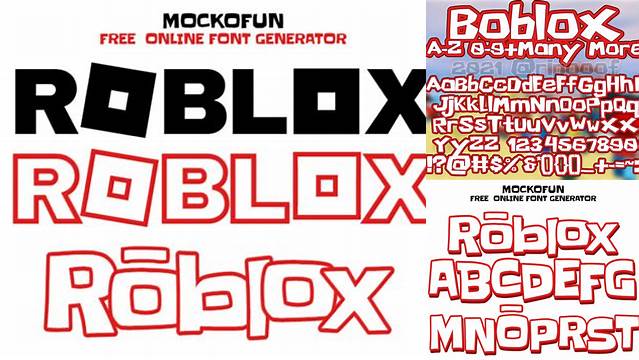
Free Roblox Font Text Generator: Cool Styles!
Hey guys! Want to make your Roblox profile, game descriptions, or group shout stand out? You've come to the right place! We're diving deep into the world of Roblox font text generators, and the best part? It's all free! Let's explore how you can create awesome, eye-catching text that will grab attention and make your Roblox presence truly unique. Forget boring default fonts – we're about to level up your text game! Think of this as your ultimate guide to all things Roblox font related. So, buckle up and get ready to transform your Roblox experience with some seriously cool text.
What is a Roblox Font Text Generator?
Alright, let's start with the basics. What exactly is a Roblox font text generator? Simply put, it's a tool that allows you to convert plain text into stylish, fancy fonts that you can then copy and paste into Roblox. Roblox itself has a limited selection of fonts, which can make your profile or game descriptions look pretty generic. A Roblox font text generator, on the other hand, opens up a whole world of possibilities. You can choose from a massive library of fonts, including bold, italic, cursive, and even more creative styles. These generators work by using special Unicode characters that appear as different fonts in Roblox. So, while Roblox's own font options might be limited, these generators help you bypass that by transforming your regular text into visually appealing formats that Roblox can still display. This means you can inject personality and flair into your in-game communication, descriptions, and even group names. They're a game-changer for anyone wanting to add a unique touch to their Roblox experience, and the best part is, many are completely free to use!
Why Use a Roblox Font Text Generator?
Why bother with a Roblox font text generator when Roblox already has its default font? Great question! The answer boils down to standing out from the crowd and expressing your unique style. Imagine scrolling through countless Roblox profiles, all with the same plain text. It can get a little monotonous, right? Using a font generator allows you to bold important information, add flair with cursive fonts, or create a futuristic vibe with tech-inspired styles. It's like giving your text a personality boost! Beyond aesthetics, a Roblox font text generator can also help you emphasize key points in your game descriptions or group shouts. A well-placed bold word or a stylish heading can draw the eye and make your message more impactful. Plus, let's be honest, it's just plain fun to experiment with different fonts and see how they transform your text. Using a Roblox font text generator is a simple yet effective way to enhance your Roblox presence and leave a lasting impression.
How to Use a Free Roblox Font Generator
Okay, so you're convinced that a Roblox font text generator is the way to go. Awesome! Now, let's talk about how to actually use one. Don't worry, it's super easy. Most free Roblox font generators follow a similar process. First, you'll need to find a generator online. A quick Google search for "free Roblox font generator" should bring up plenty of options. Once you've found one you like, you'll typically see a text box where you can type in your message. After you've written your text, the generator will automatically display it in a variety of different fonts below. Simply scroll through the options and choose the font that best suits your style. Then, all that's left to do is copy the generated text and paste it into your Roblox profile, game description, or group shout. It's as simple as that! Just remember that Roblox may not support every single font, so it's always a good idea to test it out in a non-critical area first to make sure it displays correctly. With a few clicks, you can transform your plain text into a visually stunning masterpiece!
Best Free Roblox Font Generators Online
Now that you know how to use a Roblox font text generator, let's talk about where to find the best ones. The internet is overflowing with options, but not all generators are created equal. Some offer a wider variety of fonts than others, while some might have a cleaner, more user-friendly interface. To help you get started, here are a few popular free Roblox font generators that are worth checking out. First up, you've got LingoJam, which is a classic choice for generating stylish text. It's super easy to use and offers a wide range of font options. Another great option is CoolSymbol, which not only generates fancy fonts but also provides a ton of other cool symbols and characters you can use to further personalize your text. And don't forget about Textcraft, which is another reliable generator with a solid selection of fonts. The best way to find your favorite is to experiment with a few different generators and see which one you like best. Most of these sites are free, easy to use, and offer a plethora of cool fonts to spice up your Roblox presence.
Creating Stylish Roblox Usernames
Your Roblox username is your identity in the game, so why not make it stylish? A Roblox font text generator can be a fantastic tool for creating a username that stands out. Think about it – a unique font can instantly make your username more memorable and reflect your personality. When choosing a font for your username, it's important to consider readability. While a super fancy font might look cool, it's not very effective if other players can't easily read it. Opt for fonts that are stylish but still clear and legible. You can use a Roblox font text generator to experiment with different fonts and see how they look with your desired username. Try using a bold font to make your name pop, or a cursive font for a more elegant touch. Remember, your username is your first impression in the Roblox world, so make it count! A well-chosen font can be the difference between a forgettable name and one that everyone remembers.
Enhancing Roblox Game Descriptions
Game descriptions are crucial for attracting players to your Roblox creations. A Roblox font text generator can help you craft descriptions that are not only informative but also visually appealing. Imagine scrolling through a list of games, all with the same plain text descriptions. Which one are you more likely to click on – the one with the boring text or the one with a catchy title and a description that uses stylish fonts to highlight key features? Using different fonts can help you break up large blocks of text and make your description more scannable. Use a bold font for headings, italic for emphasis, and perhaps a unique font for the game title itself. Just be careful not to overdo it – too many different fonts can make your description look cluttered and confusing. The goal is to enhance readability and draw attention to the most important aspects of your game. A well-crafted description, enhanced with stylish fonts, can be a game-changer for attracting players to your Roblox world.
Customizing Roblox Group Shouts
Roblox groups are a fantastic way to connect with other players, and group shouts are the primary way to communicate with your members. A Roblox font text generator can help you create group shouts that are not only informative but also engaging and eye-catching. Think about it – a well-formatted group shout can capture the attention of your members and encourage them to participate in group activities. Use a Roblox font text generator to add emphasis to important announcements, highlight upcoming events, or simply make your group shout more visually appealing. A bold font can be used to draw attention to key information, while a stylish font can add a touch of personality to your message. Just like with game descriptions, it's important to use fonts strategically and avoid overdoing it. The goal is to make your group shouts stand out without being overwhelming or difficult to read. A well-designed group shout can foster a sense of community and encourage members to stay active in your Roblox group.
Using Bold Fonts in Roblox
Bold fonts are your best friend when it comes to making text stand out in Roblox. A Roblox font text generator can easily help you achieve this effect, allowing you to emphasize key information and draw attention to specific words or phrases. Think about how you can use bold text strategically in your Roblox profile, game descriptions, and group shouts. For example, you might use bold text to highlight the title of your game, the key features of your experience, or important announcements in your group. Bold fonts are particularly effective for headings and subheadings, as they help to break up large blocks of text and make your message more scannable. When using a Roblox font text generator to create bold text, remember that less is often more. Overusing bold fonts can diminish their impact and make your text look cluttered. Instead, use them sparingly to highlight the most important elements of your message. A well-placed bold word or phrase can be incredibly effective in capturing attention and conveying your message clearly.
Creating Italic Text for Emphasis
Italic text is another powerful tool for adding emphasis to your Roblox text. A Roblox font text generator can easily convert your plain text into italic style, allowing you to highlight specific words or phrases and add a touch of elegance to your message. Think about how you can use italics to express emotions, add a sense of mystery, or simply make your text more visually appealing. For example, you might use italics to emphasize a sarcastic remark, highlight a character's thoughts, or create a more sophisticated tone in your game description. When using a Roblox font text generator to create italic text, it's important to use it judiciously. Overusing italics can make your text difficult to read and diminish their impact. Instead, use them sparingly to highlight specific words or phrases that you want to stand out. A well-placed italicized word can add a subtle but effective layer of meaning to your Roblox text.
Generating Cursive Fonts for Roblox
Cursive fonts can add a touch of elegance and personality to your Roblox text. A Roblox font text generator that offers cursive options can be a fantastic tool for creating a unique and stylish impression. Think about how you can use cursive fonts to express your creativity and add a distinctive flair to your Roblox profile, game descriptions, or group shouts. For example, you might use a cursive font for your username to create a sophisticated and memorable identity, or use it to write the title of your game in a particularly artistic way. When using a Roblox font text generator to create cursive text, it's essential to consider readability. Cursive fonts can be beautiful, but some can be difficult to decipher if they are too elaborate. Choose cursive fonts that are still relatively easy to read, especially if you're using them for longer passages of text. A well-chosen cursive font can add a touch of class and sophistication to your Roblox presence.
Using Stylish Fonts in Roblox Profiles
Your Roblox profile is your online identity, so it's essential to make it stand out. A Roblox font text generator can be a game-changer when it comes to creating a profile that reflects your personality and style. Think about the message you want to convey with your profile, and choose fonts that align with that message. A bold font can project confidence and strength, while a cursive font can suggest elegance and creativity. A playful font might be perfect for a gamer who enjoys lighthearted fun, while a futuristic font could appeal to a science fiction enthusiast. When using a Roblox font text generator for your profile, pay attention to the overall aesthetic. Choose a font that complements your avatar and other profile elements. A well-designed profile, enhanced with stylish fonts, can make a lasting impression on other Roblox players and help you connect with like-minded individuals.
Fonts for Roblox Game Titles
The title of your Roblox game is the first thing players see, so it's crucial to make it catchy and memorable. A Roblox font text generator can help you create a title that grabs attention and conveys the essence of your game. Think about the genre and theme of your game when choosing a font. A horror game might benefit from a spooky or unsettling font, while a fantasy game could use an elegant or whimsical font. A science fiction game might call for a futuristic or tech-inspired font. When using a Roblox font text generator for your game title, consider readability. While a unique and stylish font can be eye-catching, it's essential that players can easily read the title. A font that is too elaborate or difficult to decipher can be off-putting. Choose a font that strikes a balance between style and clarity. A well-designed game title, enhanced with a compelling font, can be a powerful tool for attracting players to your Roblox experience.
Cool Fonts for Roblox Groups
Your Roblox group is your online community, so it's important to create a visual identity that reflects your group's values and interests. A Roblox font text generator can help you choose fonts that align with your group's theme and personality. Think about the purpose of your group when selecting fonts. A gaming group might use a bold or edgy font, while a fan club could opt for a stylish and expressive font. A role-playing group might choose a font that evokes the world they are creating. When using a Roblox font text generator for your group, consider the overall aesthetic. Choose fonts that complement your group logo and other visual elements. Consistency is key when it comes to branding, so try to use the same font or a similar font family across all your group materials. A well-designed group identity, enhanced with cool fonts, can help you attract new members and foster a strong sense of community.
Futuristic Fonts for Roblox
If you're creating a science fiction or futuristic Roblox game, using futuristic fonts is a must! A Roblox font text generator that offers a selection of tech-inspired fonts can help you create a truly immersive experience. Think about the technology and atmosphere of your game when choosing fonts. A sleek and minimalist font might be perfect for a high-tech setting, while a more intricate and stylized font could evoke a sense of advanced alien technology. When using a Roblox font text generator for futuristic fonts, consider readability. Some futuristic fonts can be quite stylized, so it's important to choose fonts that are still easy to read, especially for longer passages of text. You can also use futuristic fonts in your Roblox profile or group if you're a fan of science fiction. A well-chosen futuristic font can add a cool and edgy vibe to your online presence.
Spooky Fonts for Roblox Horror Games
Creating a chilling atmosphere is essential for any Roblox horror game, and the right font can play a big role in achieving that. A Roblox font text generator that offers spooky fonts can help you create a sense of dread and unease from the moment players see your game's title. Think about the specific type of horror you're aiming for when choosing a font. A dripping, blood-like font might be perfect for a gory slasher game, while a scratchy, handwritten font could evoke a sense of psychological horror. When using a Roblox font text generator for spooky fonts, readability is still important. While you want to create a sense of fear, you also need players to be able to read your game's title and description. Choose fonts that are unsettling but not illegible. You can also use spooky fonts in your Roblox profile or group if you're a horror enthusiast. A well-chosen spooky font can add a chilling touch to your online identity.
Fantasy Fonts for Roblox RPGs
If you're building a Roblox role-playing game (RPG) set in a fantasy world, choosing the right font is crucial for immersing players in your creation. A Roblox font text generator that offers fantasy fonts can help you create a sense of magic and adventure. Think about the specific tone and style of your fantasy world when choosing a font. An elegant and flowing font might be perfect for a high-fantasy setting, while a more rugged and ancient-looking font could evoke a sense of grimdark fantasy. When using a Roblox font text generator for fantasy fonts, consider the readability of the font. You'll want players to be able to easily read quest logs, character names, and other in-game text. Choose fonts that are stylish but not overly ornate. You can also use fantasy fonts in your Roblox profile or group if you're a fan of the genre. A well-chosen fantasy font can add a touch of whimsy and wonder to your online presence.
Handwritten Fonts for Roblox Story Games
Handwritten fonts can add a personal and intimate touch to your Roblox story games. A Roblox font text generator that offers handwritten fonts can help you create a sense of vulnerability and emotional connection with your players. Think about the perspective and voice of your narrator or characters when choosing a font. A neat and tidy handwritten font might be perfect for a character who is organized and thoughtful, while a more messy and frantic font could evoke a sense of anxiety or desperation. When using a Roblox font text generator for handwritten fonts, readability is crucial. Handwritten fonts can sometimes be difficult to read, so it's important to choose fonts that are still clear and legible, especially for longer passages of text. A well-chosen handwritten font can add a unique and emotional dimension to your Roblox story.
Pixel Fonts for Retro Roblox Games
If you're creating a retro-style Roblox game, pixel fonts are a must! A Roblox font text generator that offers pixel fonts can help you capture the nostalgic feel of classic video games. Think about the era and style of the games you're trying to emulate when choosing a font. A simple and blocky pixel font might be perfect for an 8-bit game, while a more detailed and rounded pixel font could evoke the look of 16-bit games. When using a Roblox font text generator for pixel fonts, consider readability. Pixel fonts can sometimes be small and difficult to read, so it's important to choose fonts that are clear and legible, even at small sizes. A well-chosen pixel font can transport your players back in time and add a touch of authenticity to your retro Roblox creation.
Calligraphy Fonts for Roblox
Calligraphy fonts can add a touch of elegance and sophistication to your Roblox creations. A Roblox font text generator that offers calligraphy fonts can be a great tool for creating stylish profiles, game titles, and group descriptions. Think about the mood and tone you want to convey when choosing a calligraphy font. A flowing and graceful calligraphy font might be perfect for a romantic or whimsical game, while a bolder and more angular calligraphy font could evoke a sense of strength and tradition. When using a Roblox font text generator for calligraphy fonts, readability is an important consideration. Some calligraphy fonts can be quite ornate and difficult to decipher, so it's important to choose fonts that are still relatively easy to read, especially for longer passages of text. A well-chosen calligraphy font can elevate your Roblox presence and add a touch of class to your creations.
Bubble Fonts for Fun Roblox Games
Bubble fonts are a fun and playful choice for Roblox games, especially those aimed at younger audiences. A Roblox font text generator that offers bubble fonts can help you create a lighthearted and cheerful atmosphere. Think about the overall tone and style of your game when choosing a bubble font. A rounded and bubbly font might be perfect for a cartoonish or whimsical game, while a more angular and geometric bubble font could evoke a sense of modern fun. When using a Roblox font text generator for bubble fonts, readability is important. Bubble fonts can sometimes be a bit more challenging to read than standard fonts, so it's essential to choose fonts that are still clear and legible, especially for younger players. A well-chosen bubble font can add a touch of whimsy and playfulness to your Roblox creations.
Graffiti Fonts for Urban Roblox Games
If you're creating a Roblox game set in an urban environment, graffiti fonts can be a great way to add authenticity and edge. A Roblox font text generator that offers graffiti fonts can help you capture the raw and rebellious spirit of street art. Think about the specific style and tone of your urban setting when choosing a graffiti font. A bold and tag-like font might be perfect for a gritty and realistic game, while a more stylized and artistic graffiti font could evoke a sense of urban creativity. When using a Roblox font text generator for graffiti fonts, readability can be a challenge. Graffiti fonts are often designed to be visually striking rather than easily legible, so it's important to choose fonts that are still readable enough for your game's text. A well-chosen graffiti font can add a strong sense of urban authenticity to your Roblox game.
3D Fonts for Roblox Titles
3D fonts can make your Roblox game titles really pop! While a Roblox font text generator might not create actual 3D models, it can generate text that looks three-dimensional, adding depth and visual interest. Think about the style and theme of your game when choosing a 3D-style font. A bold, blocky 3D font might be perfect for an action game, while a more elegant and curved 3D font could suit a puzzle game. When using a Roblox font text generator for 3D fonts, consider readability. Some 3D fonts can be quite complex, so it's important to choose fonts that are still easy to read at a glance. A well-chosen 3D-style font can make your game title stand out and grab players' attention.
Outline Fonts for Roblox Text
Outline fonts can be a great way to add a clean and modern look to your Roblox text. A Roblox font text generator that offers outline fonts can help you create text that stands out without being overly bold or flashy. Think about the overall style and tone of your game or profile when choosing an outline font. A simple and minimalist outline font might be perfect for a modern or futuristic setting, while a more decorative outline font could add a touch of elegance or playfulness. When using a Roblox font text generator for outline fonts, consider the contrast between the outline and the background. Choose colors that will make the text easy to read. A well-chosen outline font can add a stylish and contemporary touch to your Roblox creations.
Shadow Fonts for Roblox Game Descriptions
Shadow fonts can add depth and dimension to your Roblox game descriptions. A Roblox font text generator that offers shadow fonts can help you create text that appears to float off the page, drawing the reader's eye. Think about the overall style and tone of your game description when choosing a shadow font. A subtle shadow might be perfect for a more serious and realistic game, while a more pronounced shadow could add a touch of drama or excitement. When using a Roblox font text generator for shadow fonts, consider the readability of the text. Make sure the shadow doesn't obscure the letters and make them difficult to read. A well-chosen shadow font can add visual interest to your game description and make it more engaging.
Rounded Fonts for Roblox Usernames
Rounded fonts can give your Roblox username a friendly and approachable feel. A Roblox font text generator that offers rounded fonts can be a great choice if you want to project a positive and welcoming image. Think about the overall impression you want to make with your username when choosing a rounded font. A soft and gentle rounded font might be perfect for a player who enjoys making friends, while a bolder and more playful rounded font could suit a gamer who loves fun and adventure. When using a Roblox font text generator for rounded fonts, consider readability. Choose fonts that are clear and legible, even at smaller sizes. A well-chosen rounded font can make your username stand out and create a positive first impression.
Square Fonts for Roblox Groups
Square fonts can give your Roblox group a strong and modern identity. A Roblox font text generator that offers square fonts can be a great choice if you want to project a sense of stability and professionalism. Think about the purpose and theme of your group when choosing a square font. A bold and geometric square font might be perfect for a gaming group or a development team, while a more minimalist square font could suit a group focused on building or design. When using a Roblox font text generator for square fonts, consider the overall aesthetic of your group's branding. Choose fonts that complement your logo and other visual elements. A well-chosen square font can help your group stand out and project a strong, cohesive identity.
Eroded Fonts for Post-Apocalyptic Roblox Games
If you're creating a Roblox game set in a post-apocalyptic world, eroded fonts can be a fantastic way to set the mood. A Roblox font text generator that offers eroded or distressed fonts can help you create a sense of decay and ruin. Think about the specific type of apocalypse you're portraying when choosing a font. A heavily eroded font might be perfect for a world ravaged by war or disease, while a more subtle distressed font could evoke a sense of abandonment and neglect. When using a Roblox font text generator for eroded fonts, consider readability. While you want to create a sense of decay, you also need players to be able to read your game's text. Choose fonts that are still legible despite the distressed effects. A well-chosen eroded font can add a chilling and immersive atmosphere to your post-apocalyptic Roblox game.
Distorted Fonts for Surreal Roblox Experiences
For truly unique and mind-bending Roblox games, distorted fonts can be a perfect choice. A Roblox font text generator that offers distorted fonts can help you create a sense of unease, confusion, or surrealism. Think about the overall atmosphere and themes of your game when choosing a distorted font. A slightly warped font might be perfect for a psychological thriller, while a more aggressively distorted font could suit a chaotic and dreamlike experience. When using a Roblox font text generator for distorted fonts, readability can be a challenge. Distorted fonts are often designed to be unsettling rather than easily legible, so it's important to use them sparingly and strategically. A well-chosen distorted font can add a layer of unsettling strangeness to your surreal Roblox creation.
Gradient Fonts for Colorful Roblox Creations
Gradient fonts can add a vibrant and eye-catching element to your Roblox creations. While a traditional Roblox font text generator might not be able to create true gradient fonts (where the color shifts within each letter), you can often find generators that create the look of a gradient by using different colored characters or by applying visual effects. Think about the overall style and tone of your game or profile when considering gradient fonts. A bright and colorful gradient might be perfect for a playful and cheerful game, while a more subtle and sophisticated gradient could add a touch of elegance. When using a Roblox font text generator to create gradient-style text, pay attention to the color combinations. Choose colors that complement each other and create a visually appealing effect. A well-executed gradient effect can make your Roblox text pop and grab attention.
In Conclusion
So, there you have it, guys! A comprehensive guide to using Roblox font text generators to spice up your profiles, games, and groups. Remember, a little creativity with your fonts can go a long way in making your Roblox presence stand out. Experiment with different styles, find what suits your personality and creations, and most importantly, have fun with it! With the power of free font generators at your fingertips, the possibilities are endless. Now go forth and create some awesome text!